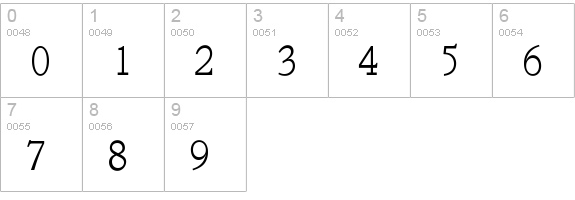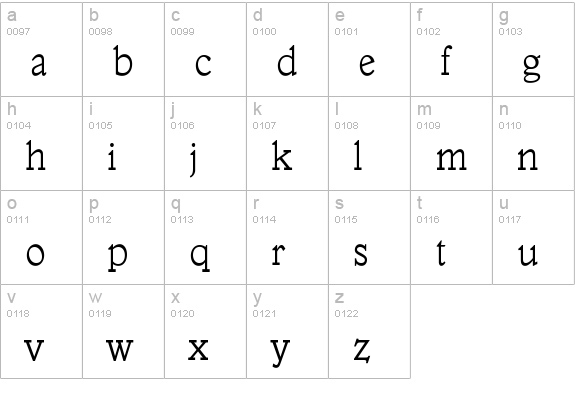
Granada-Xlight is a stunning and elegant typeface that exudes sophistication and modernity. With its delicate and refined letterforms, this font is perfect for adding a touch of class to any design project. The thin strokes and subtle curves of Granada-Xlight give it a timeless and versatile look that can be used for a variety of purposes, from branding to editorial design. What's even better is that Granada-Xlight is available for free download at FontsMarket.com. This means you can easily access this beautiful font and use it in your projects without any cost. Whether you're creating a logo, designing a website, or working on a print publication, Granada-Xlight is a fantastic choice that will elevate your work to the next level. Download it now and add a touch of elegance to your designs with Granada-Xlight.